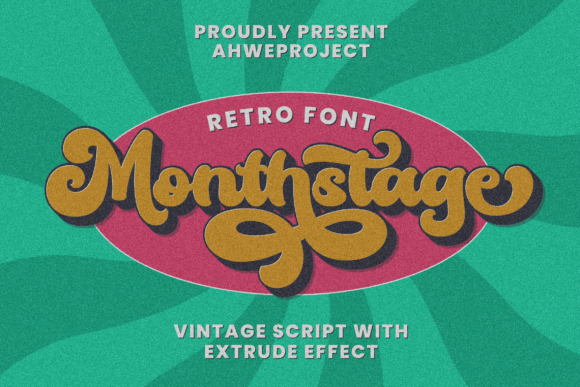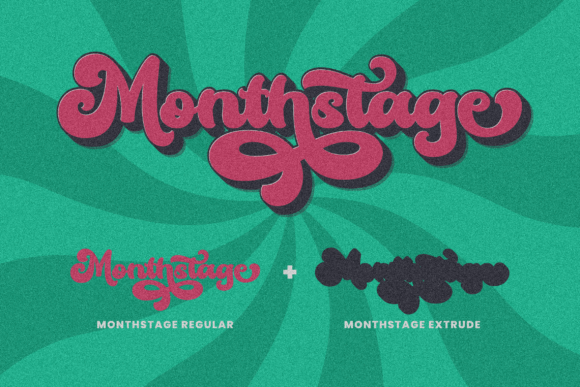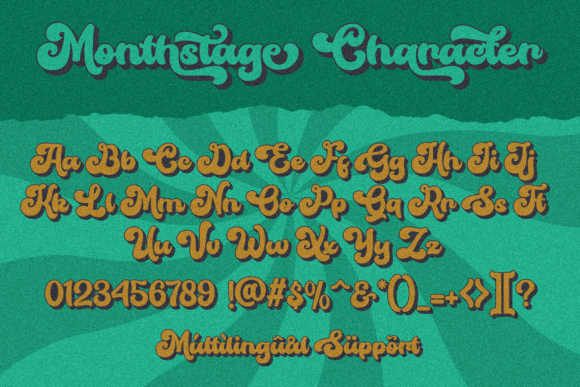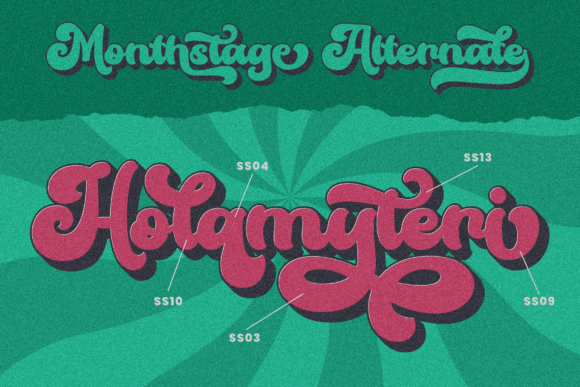
Monthstage Font: Groovy Retro Typography for Vintage Designs & Branding
About the Monthstage Font
The wait is over! The incredible Monthstage Font is now available for your design toolkit. Monthstage is a Vintage retro font inspired by retro typography and lettering in the 70s and 80s combined with a bold typography style.
This font is perfect for vintage and retro designs, badges, logos, t-shirts, posters, branding, packaging, signage, book covers, and so much more! This font is PUA encoded, which means you can access all of the glyphs and swashes with ease!
Monthstage’s bold, retro style excels in headlines, logos, and short-form text applications such as posters and packaging. Its strong character makes it ideal for brands projecting a vintage or 70s/80s-inspired aesthetic, particularly those in the fashion, music, or entertainment industries. Avoid using it for body text or lengthy paragraphs; its weight and character are not suited for extended readability.
Pairing Monthstage effectively requires considering its robust personality. A clean sans-serif like Open Sans or a geometric sans-serif such as Montserrat provides a contemporary counterpoint, balancing its vintage energy. For a more classic feel, a subtle serif like Garamond or Lato would create visual harmony.
Consider pairing it with a simple script font for added visual interest in logos or packaging, ensuring the script complements—rather than competes with—Monthstage’s bold presence. Avoid pairing it with other highly decorative or ornate fonts to prevent visual clutter.